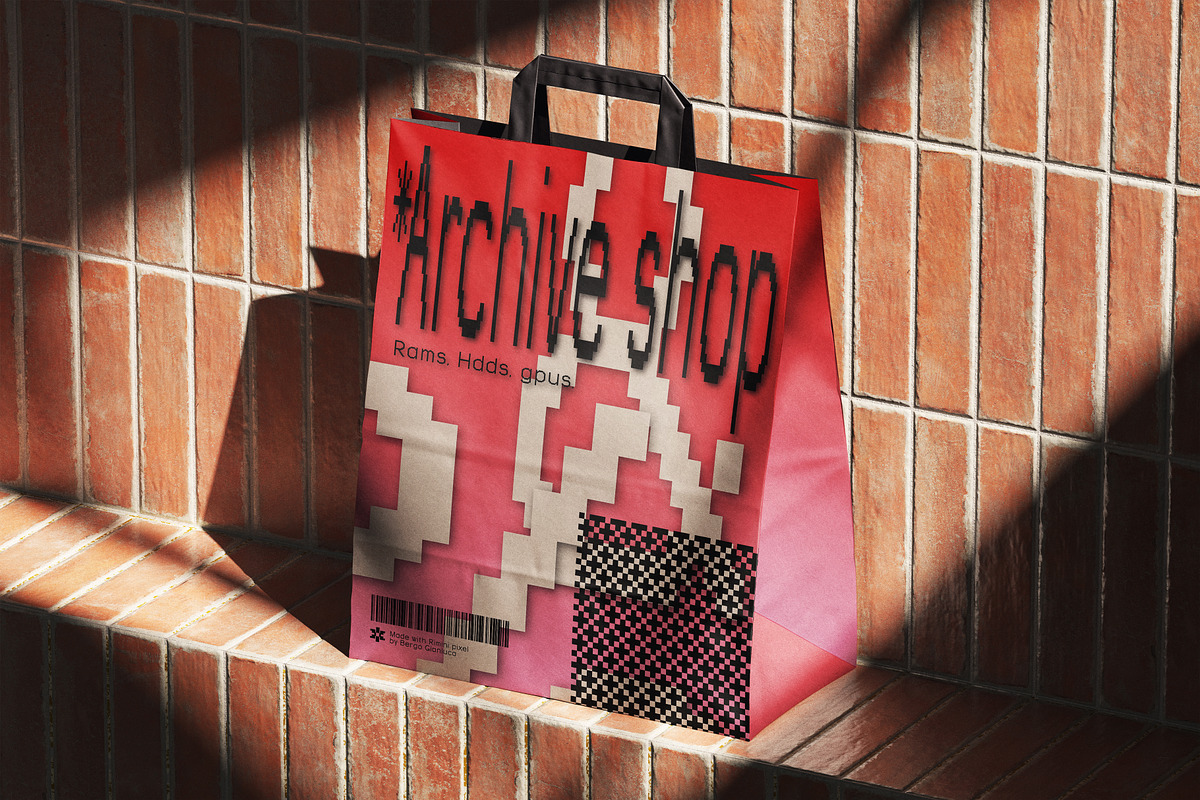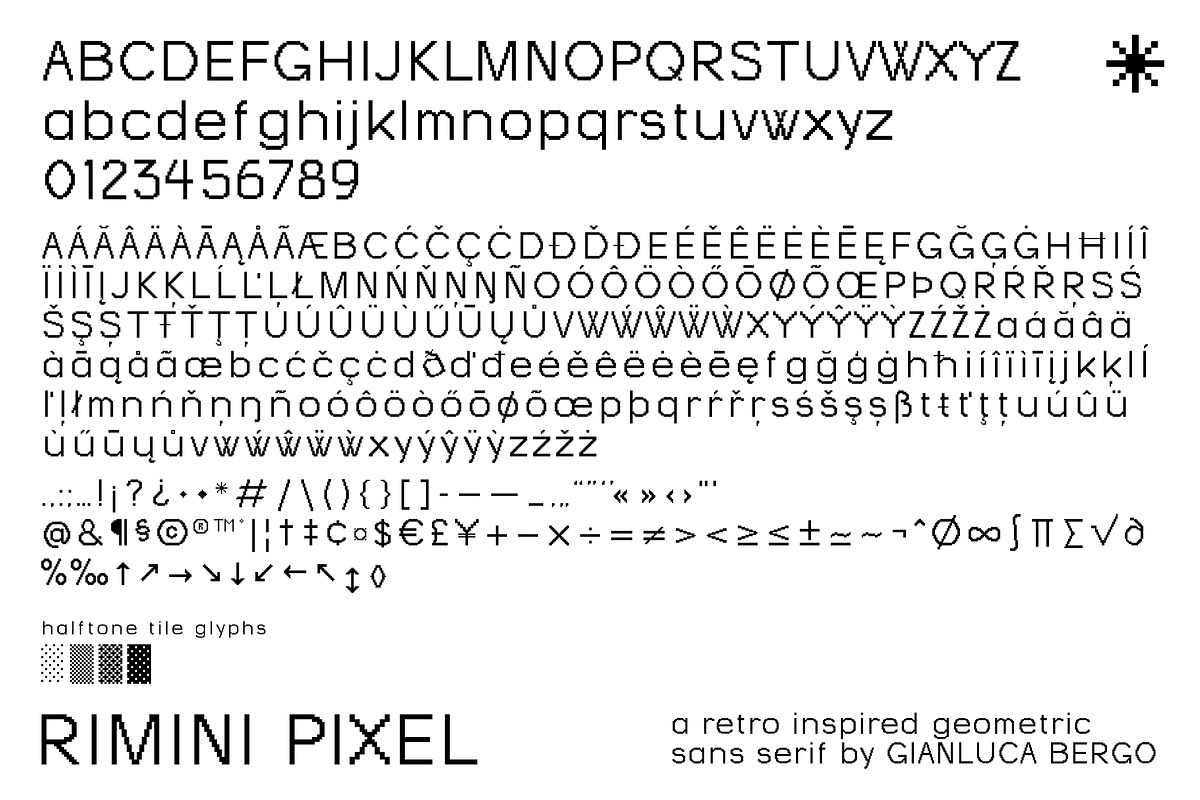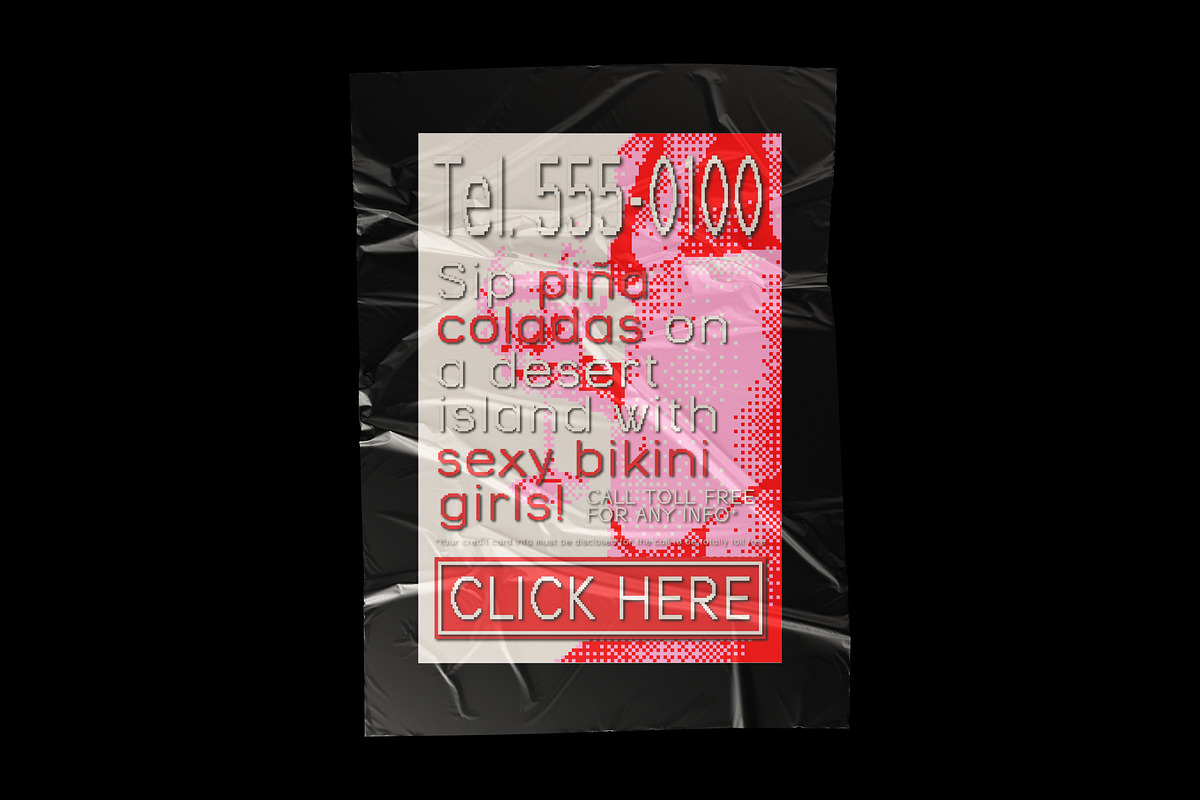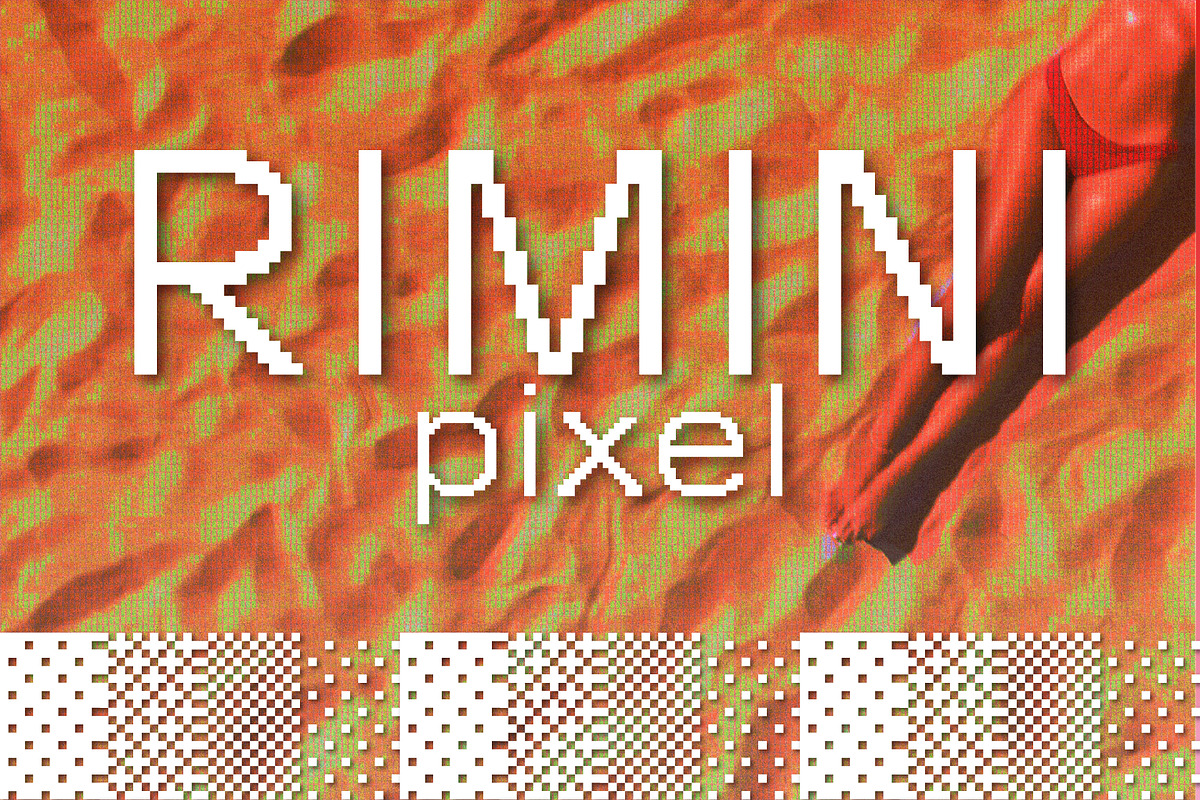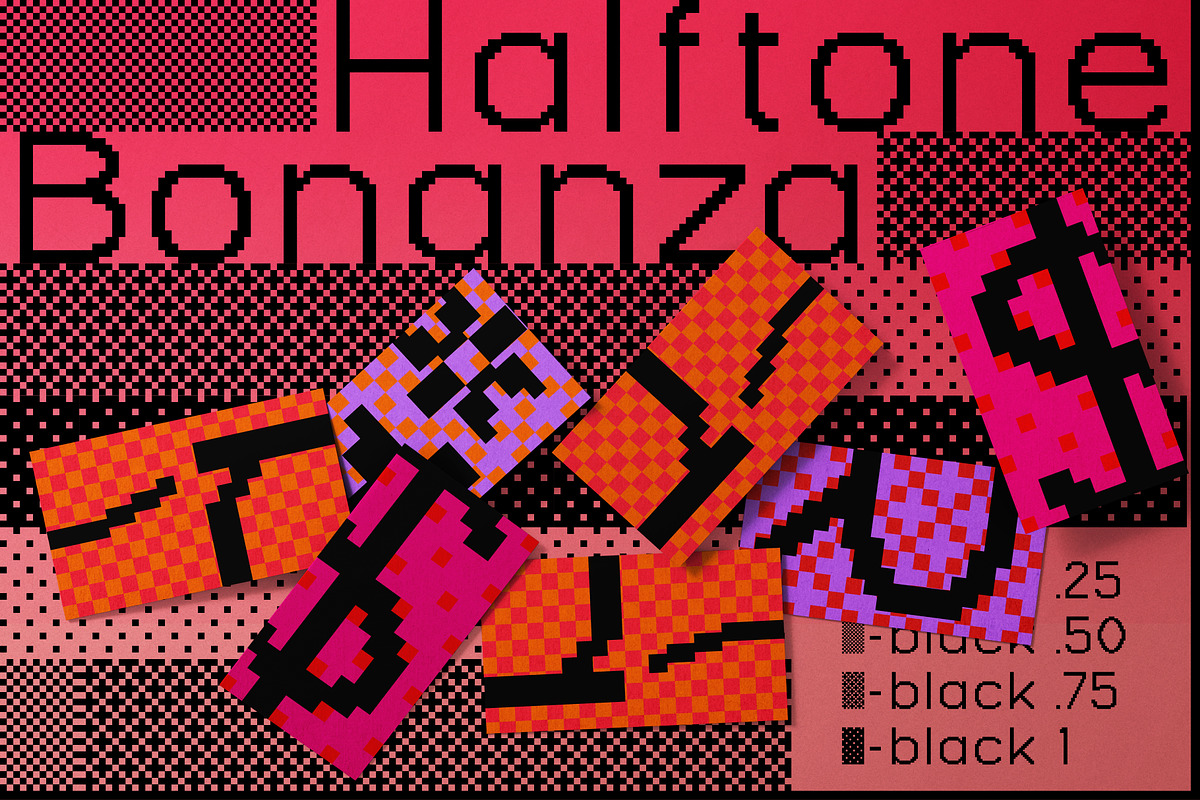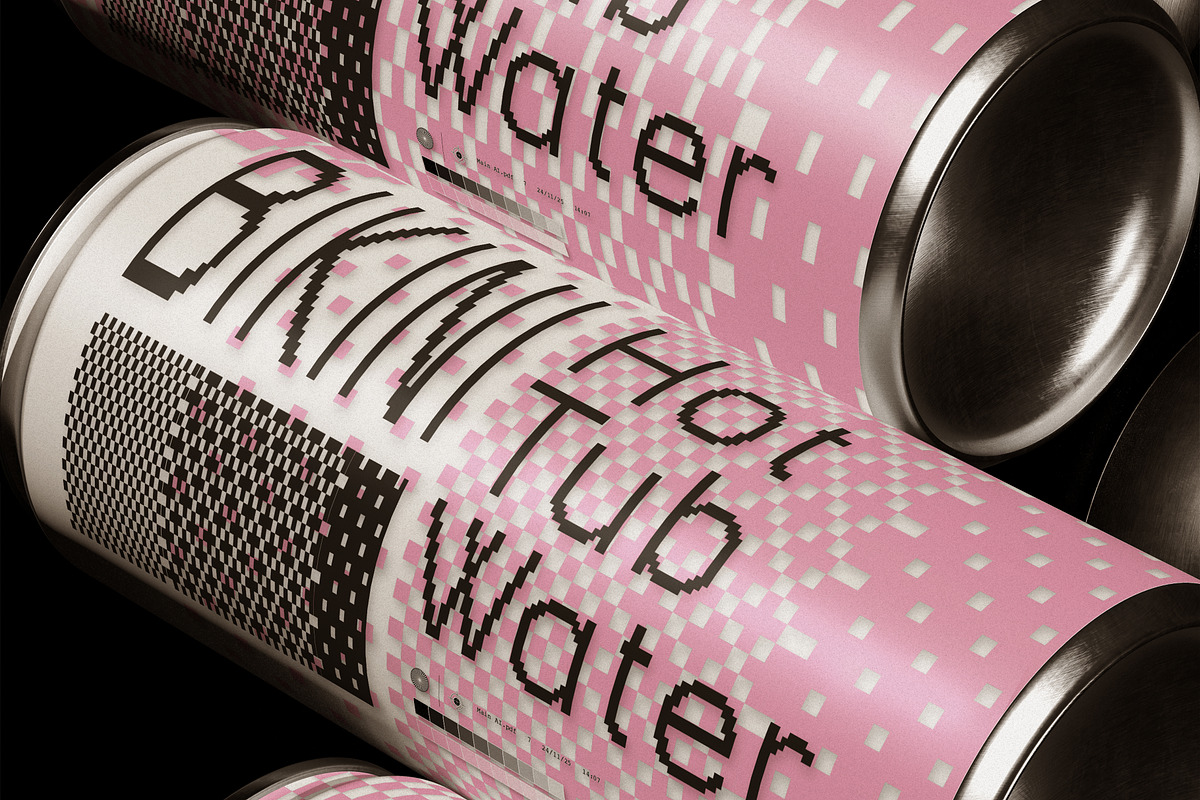
Rimini pixel - Geometric retro type
Rimini Pixel is a playful geometric sans serif reinterpretation that transforms the clean elegance of modern typography into a charming pixel-inspired aesthetic. Designed as a nostalgic tribute to early internet graphics and retro pop-up interfaces, it blends contemporary clarity with the unmistakable texture of low-resolution digital displays.
- Pixel-Geometric Character: Rimini Pixel preserves the balanced shapes and geometric construction of its sans serif origins while introducing a crisp pixel grid that evokes classic 90s and early 2000s screen typography.
- Extended Language Support: With an ample character set covering a wide range of European languages, Rimini Pixel adapts seamlessly to diverse typographic needs.
- Versatile Application: Whether used for display graphics, retro-themed layouts, branding experiments, or nostalgic digital compositions, Rimini Pixel offers a unique blend of modern precision and vintage charm, making it suitable for a broad variety of creative projects.
Rimini Pixel bridges nostalgic internet aesthetics with contemporary geometric design, offering a uniquely bold and charming pixel-based typographic voice.